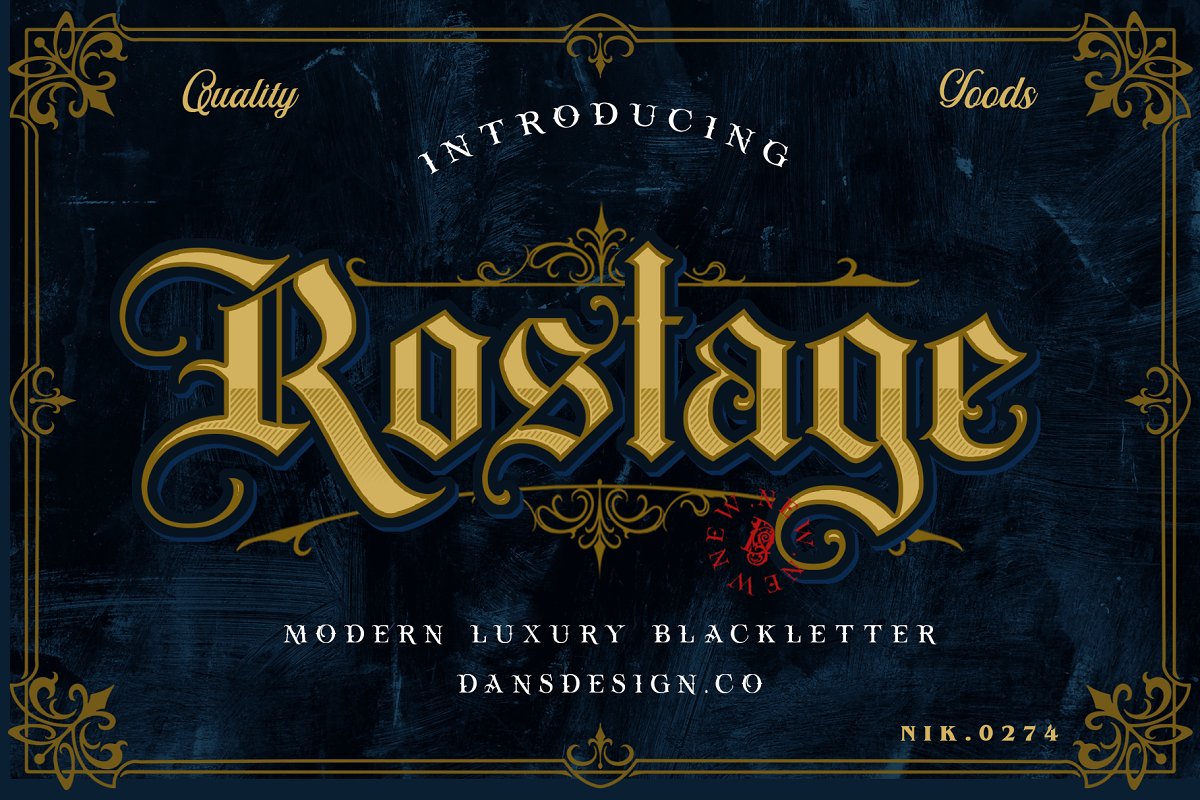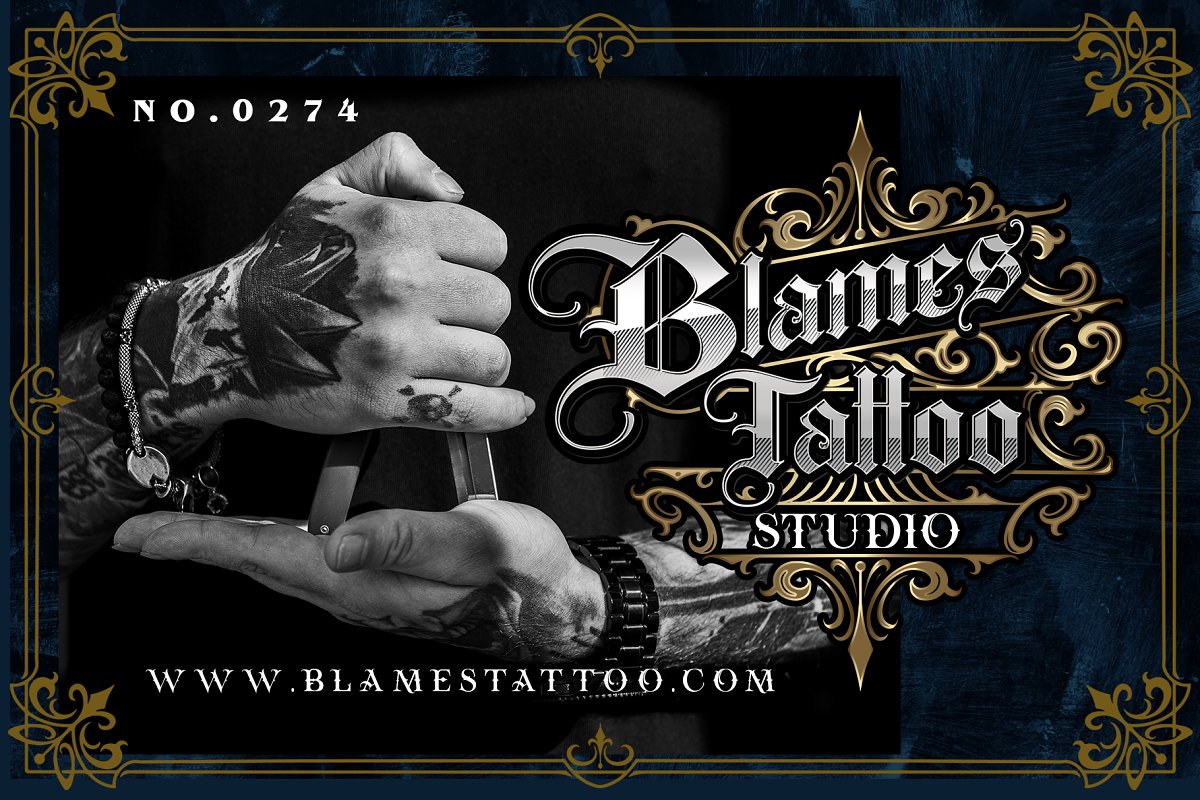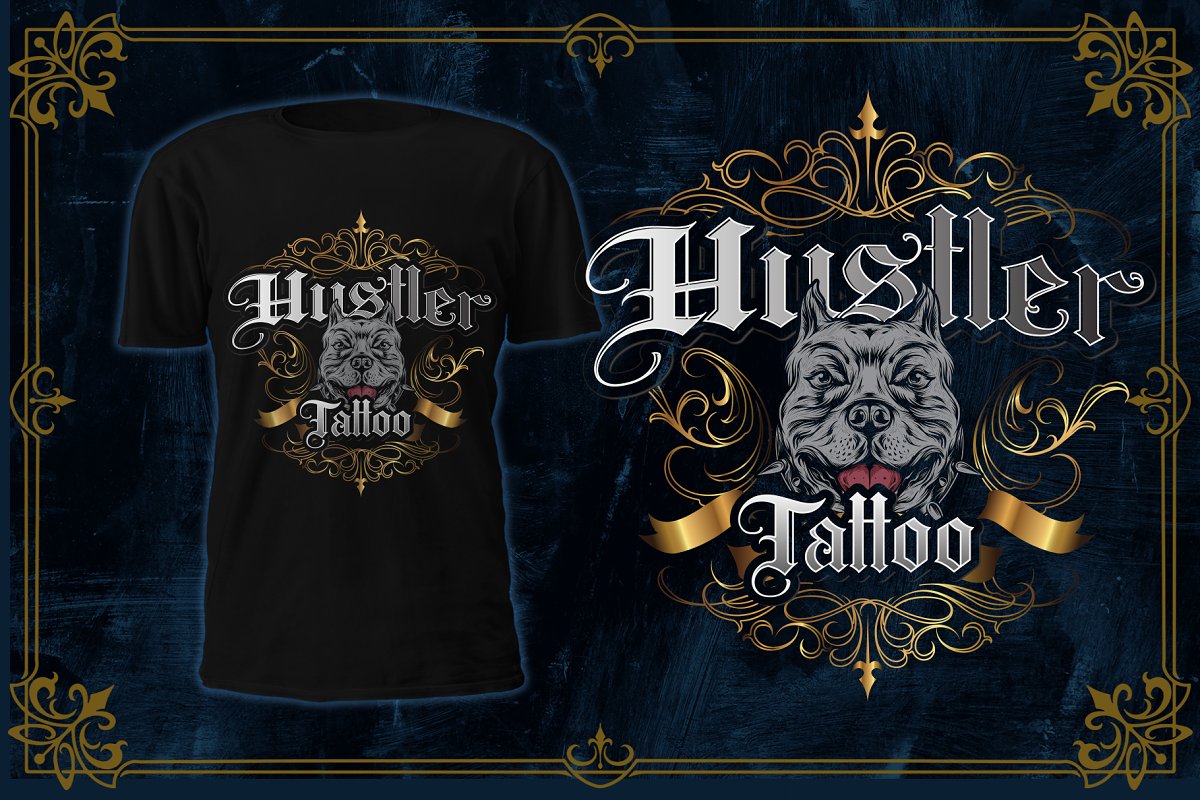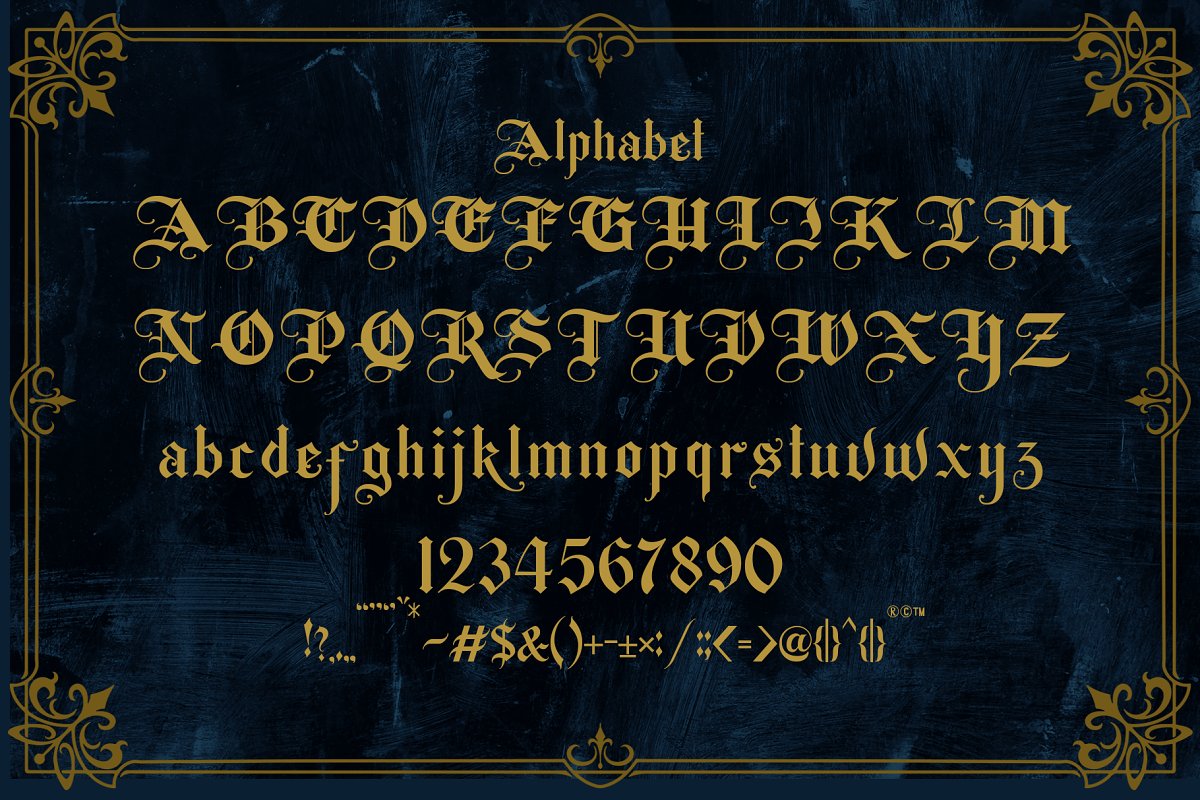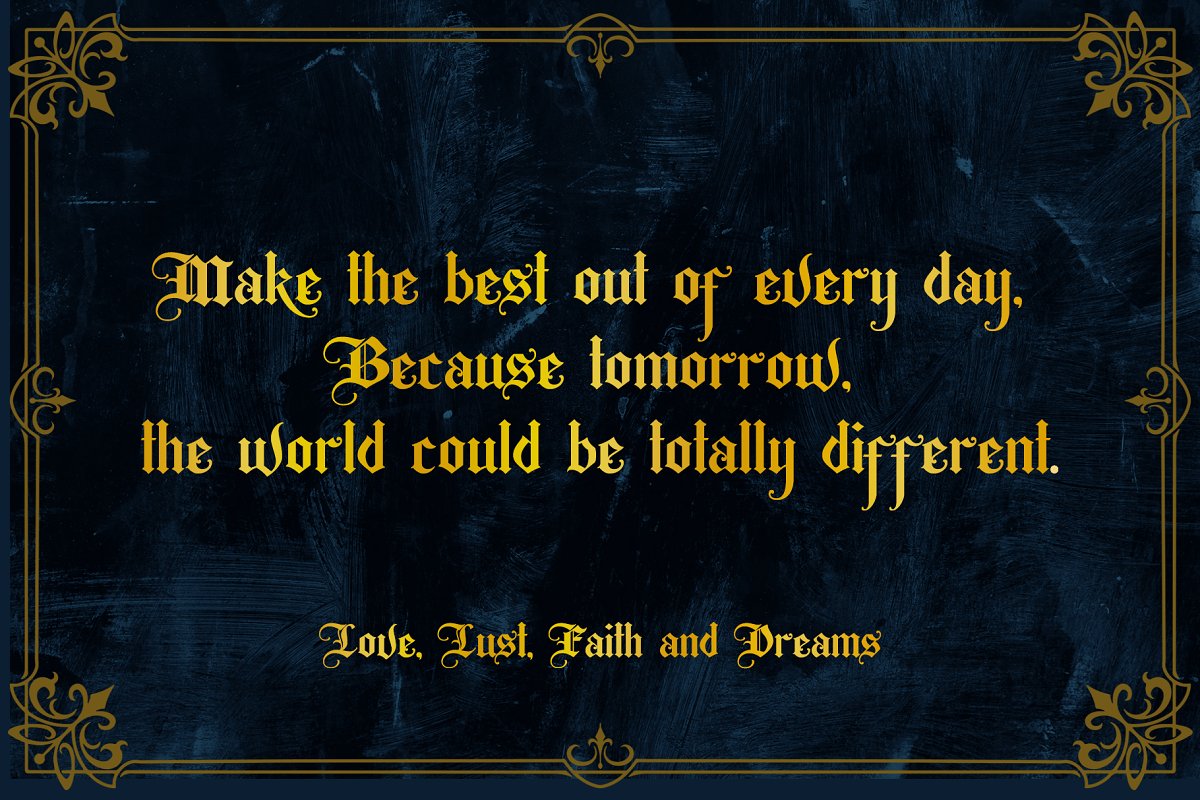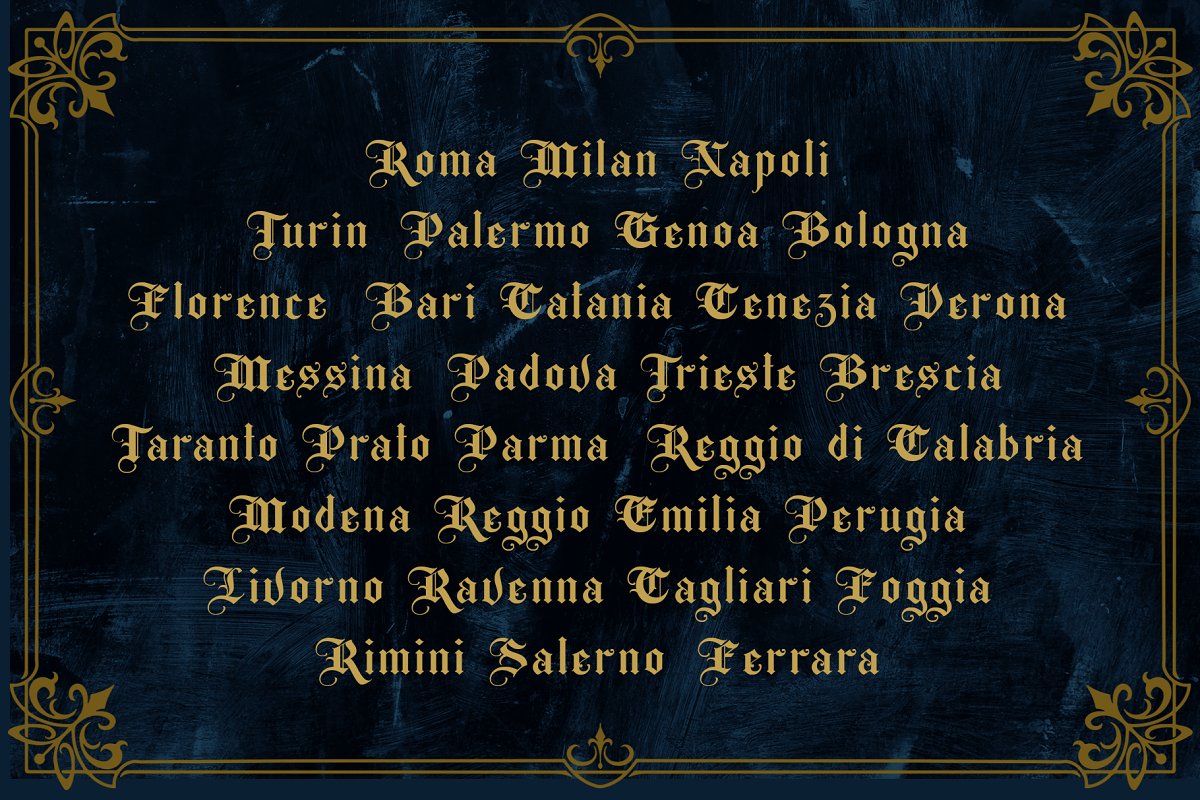
About the ROSTAGE Blackletter Font
Dansdesign Proudly present ROSTAGE modern blackletter font, This font is made with references to various letters that I combine and design with my style, ROSTAGE are great and usefull for product logo, poster title, headline, packaging, badge, wedding card logo, clothing brand logo, Vintage design and much moreProduct Content :ROSTAGE regular fontROSTAGE vector ornament Cek our Blackletter Bundle font : Blackletter Font Bundle https://creativemarket